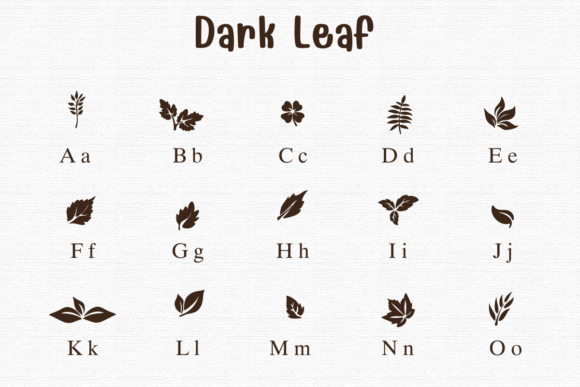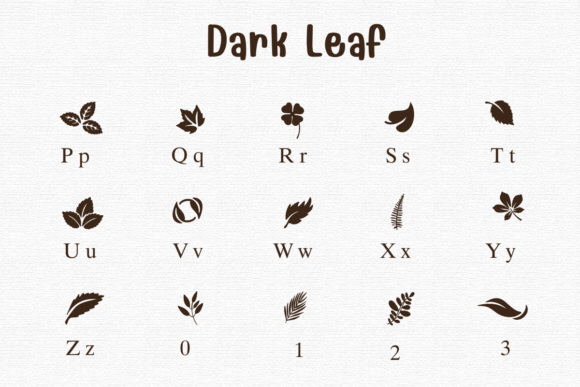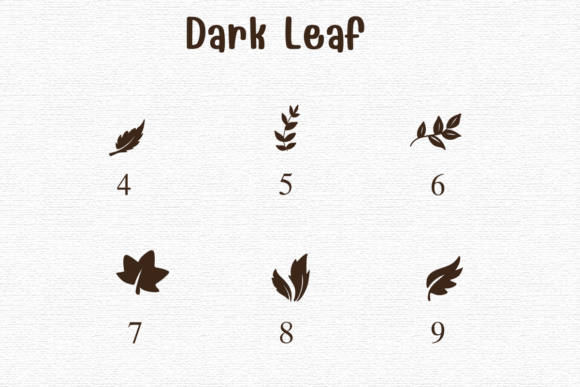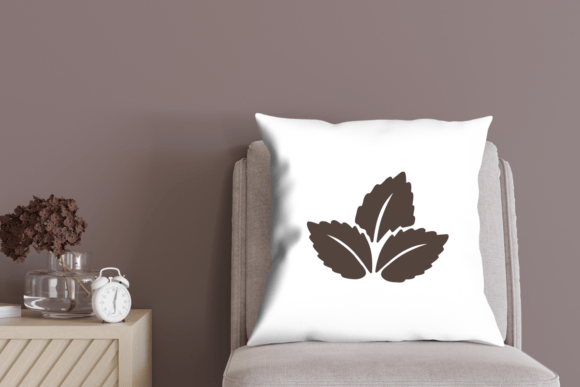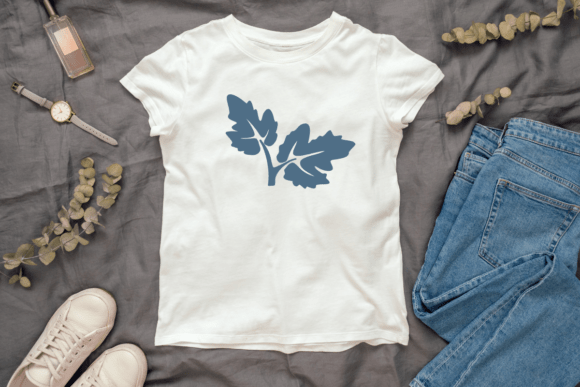
Discover the Beauty of Nature with Dark Leaf Font
Are you a designer or crafter looking for a unique and versatile font to add a touch of nature to your projects? Look no further than Dark Leaf Font, an expansive and professionally organized dingbats font that captures a diverse range of natural silhouettes. In this article, we’ll explore the features and benefits of Dark Leaf Font, and how it can elevate your designs to the next level.
What is Dark Leaf Font?
Dark Leaf Font is a dingbats font that consists of a wide variety of botanical icons, including clover, maple, and fern leaf designs, each rendered with a clean and grounded silhouette. The illustrations utilize a consistent visual weight and organic character geometry to provide a sense of customized, hand-penned artistry. This font is perfect for creating decorative borders, nature-themed digital accents, boutique product stickers, and environmental infographic elements.
Key Features of Dark Leaf Font
- Expansive Collection: Dark Leaf Font features a vast collection of botanical icons, including various leaf designs, flowers, and other natural elements.
- Clean and Grounded Silhouettes: Each icon is rendered with a clean and grounded silhouette, providing a sense of simplicity and elegance.
- Consistent Visual Weight: The illustrations utilize a consistent visual weight and organic character geometry, giving the font a cohesive and harmonious feel.
- Hand-Penned Artistry: The font’s design provides a sense of customized, hand-penned artistry, making it perfect for projects that require a personal touch.
Uses for Dark Leaf Font
Dark Leaf Font is an incredibly versatile font that can be used in a variety of projects, including:
- Decorative Borders: Use Dark Leaf Font to create beautiful decorative borders for your designs, adding a touch of nature and elegance.
- Nature-Themed Digital Accents: Add a touch of whimsy to your digital designs with nature-themed accents, such as leaf and flower icons.
- Boutique Product Stickers: Use Dark Leaf Font to create eye-catching product stickers for your boutique or craft business.
- Environmental Infographic Elements: Add a touch of nature to your environmental infographics with Dark Leaf Font’s botanical icons.
Dark Leaf Font offers a range of benefits for designers and crafters, including:
- Unique and Versatile: Dark Leaf Font provides a unique and versatile way to add a touch of nature to your designs.
- Time-Saving: With Dark Leaf Font, you can quickly and easily add botanical icons to your designs, saving you time and effort.
- Customizable: The font’s design provides a sense of customized, hand-penned artistry, making it easy to tailor your designs to your brand or style.
Dark Leaf Font is an exceptional resource for designers and crafters looking to add a touch of nature to their projects. With its expansive collection of botanical icons, clean and grounded silhouettes, and consistent visual weight, Dark Leaf Font is the perfect choice for creating decorative borders, nature-themed digital accents, boutique product stickers, and environmental infographic elements. Whether you’re a seasoned designer or a crafty DIY enthusiast, Dark Leaf Font is sure to inspire your creativity and take your designs to the next level.
Get Creative with Dark Leaf Font